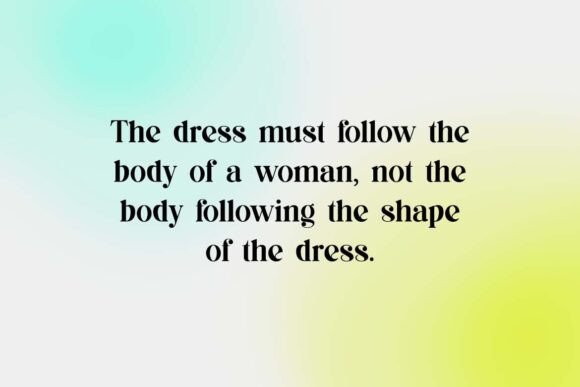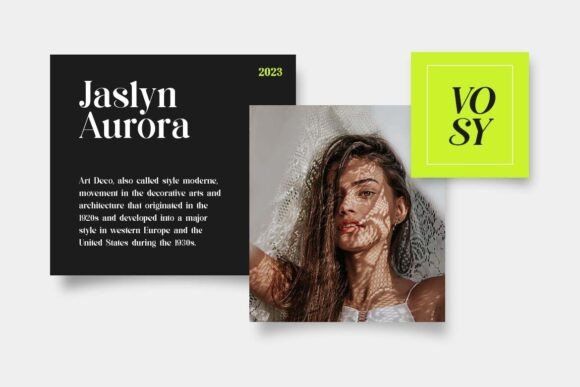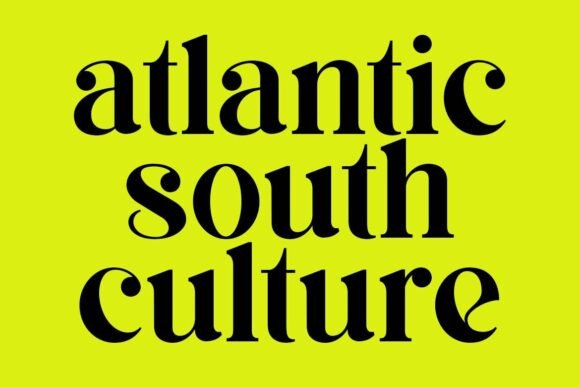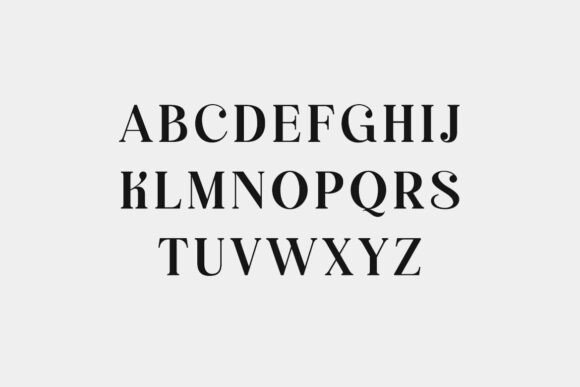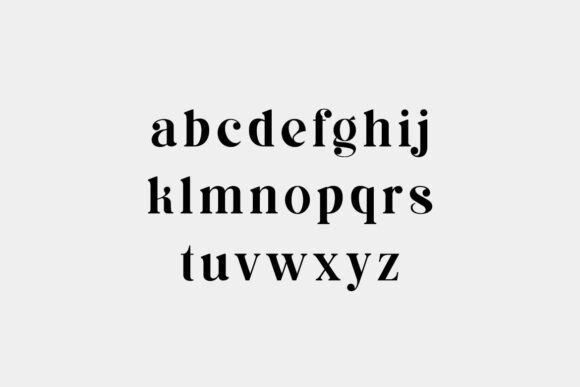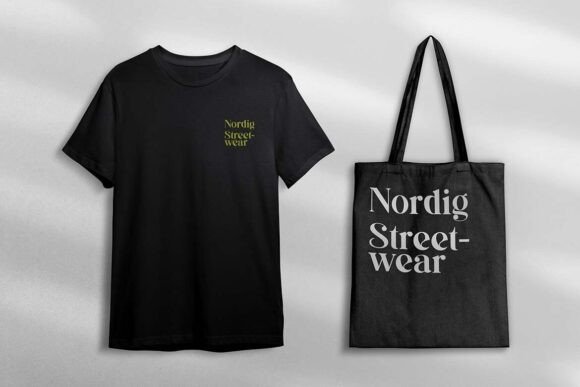
Discover the Elegance of Asimilates Font
As a designer, have you ever stumbled upon the perfect font to elevate your project, only to find it’s a rare gem that few others know about? For me, that moment came when I discovered Asimilates Modern Classic Display Serif Font. This stunning font effortlessly exudes a sense of sophistication and style, making it the perfect addition to any design project.
Whether you’re creating a signature, logo, or magazine cover, Asimilates Font is an ideal choice. Its versatility and timeless appeal make it a valuable asset for designers looking to add a touch of elegance to their work. With Asimilates Font, you can convey both masculine and feminine qualities, making it perfect for fashion-related branding or editorial design.
Asimilates Font Key Features
- Font Family: Asimilates comes in 4 font styles: Regular, Italic, Bold, and Bold Italic.
- Character Set: The font includes a wide range of characters, including Latin, Cyrillic, and Greek alphabets, as well as punctuation and special characters.
- Unique Characteristics: Asimilates features a unique blend of modern and vintage elements, with a distinctive rounded shape and subtle flair, making it suitable for a wide range of design applications.
Asimilates Font Review
Overall, I found the Asimilates Font to be a visually appealing and unique option for designers.
- Uniqueness: Asimilates Font has a distinct style that sets it apart from more common fonts.
- Legibility: Despite its unconventional design, the font is surprisingly easy to read, making it suitable for body text.
- Creative possibilities: Asimilates Font offers a wide range of creative possibilities, from titles and headings to logos and branding materials.
- Readability in small sizes: While Asimilates Font is legible, it can become difficult to read when used in small sizes, such as in captions or footnotes.
- Limited font weights: The font family is relatively small, with only a few weights and styles available, which can limit its versatility.
- Not suitable for large blocks of text: Due to its unique design, Asimilates Font may not be the best choice for large blocks of text, such as articles or novels.
The Asimilates Font is a great option for designers looking to add a touch of uniqueness to their projects. While it may have some limitations, its creative possibilities and legibility make it a valuable addition to any font library.
Tips for Getting the Most Out of Asimilates Font
For optimal results, use Asimilates Font in combination with bold or italic styles to create visual contrast.
Experiment with different font sizes and colors to achieve a harmonious balance.
Asimilates Font is ideal for creative projects such as:
– Infographics and charts
– Digital art and illustrations
– Book and magazine titles
Alternatives to Asimilates Font
Montserrat is a sans-serif font designed for digital use. It’s ideal for titles and headings due to its clean and modern aesthetic. When to use: Titles, headings, and body text where a clean and modern look is desired.
Montserrat is similar to Asimilates Font in its modern and clean design. However, Montserrat is more versatile and has a larger character set, making it a popular choice for digital design.
Merriweather is a classic serif font designed for print and digital use. It’s ideal for body text and paragraphs due to its readability and elegance. When to use: Body text, paragraphs, and any content where a classic and elegant look is desired.
Merriweather is different from Asimilates Font in its serif design, making it a good choice for content that requires a more traditional look. However, Merriweather has a larger character set and is more versatile than Asimilates Font.
Yes, Asimilates is available in multiple font weights, including Light, Regular, Medium, Bold, and Black. Additionally, it comes in various styles, such as Oblique and Italic. You can use these different weights and styles to create visual interest and emphasis in your designs.